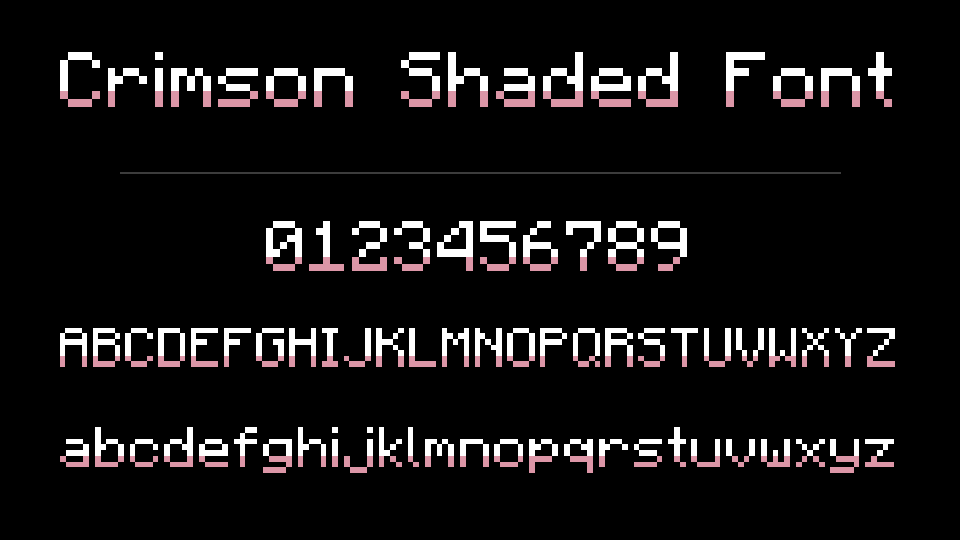
Crimson Shaded Font
Crimson Shaded Font adds a soft crimson shade to the bottom of every letter in Minecraft's font, so text gains depth without a single glyph shape changing. Shades ASCII, accents and the enchanting-table alphabet. Inspired by philliamm's Shaded Font.